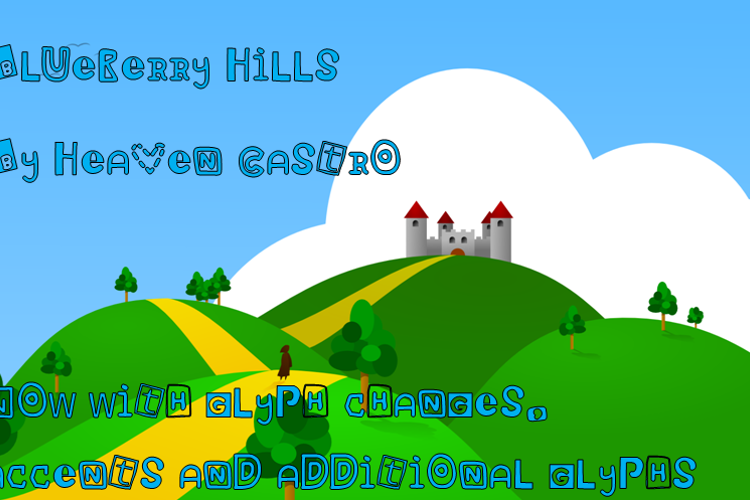
Blueberry Hills Font
This scrapbook/ransom note font was the first of the series of fonts by me, originally created in 2017.
8 years agoThis font has been updated with new glyphs, accented glyphs and the lowercase letter "e" changed.